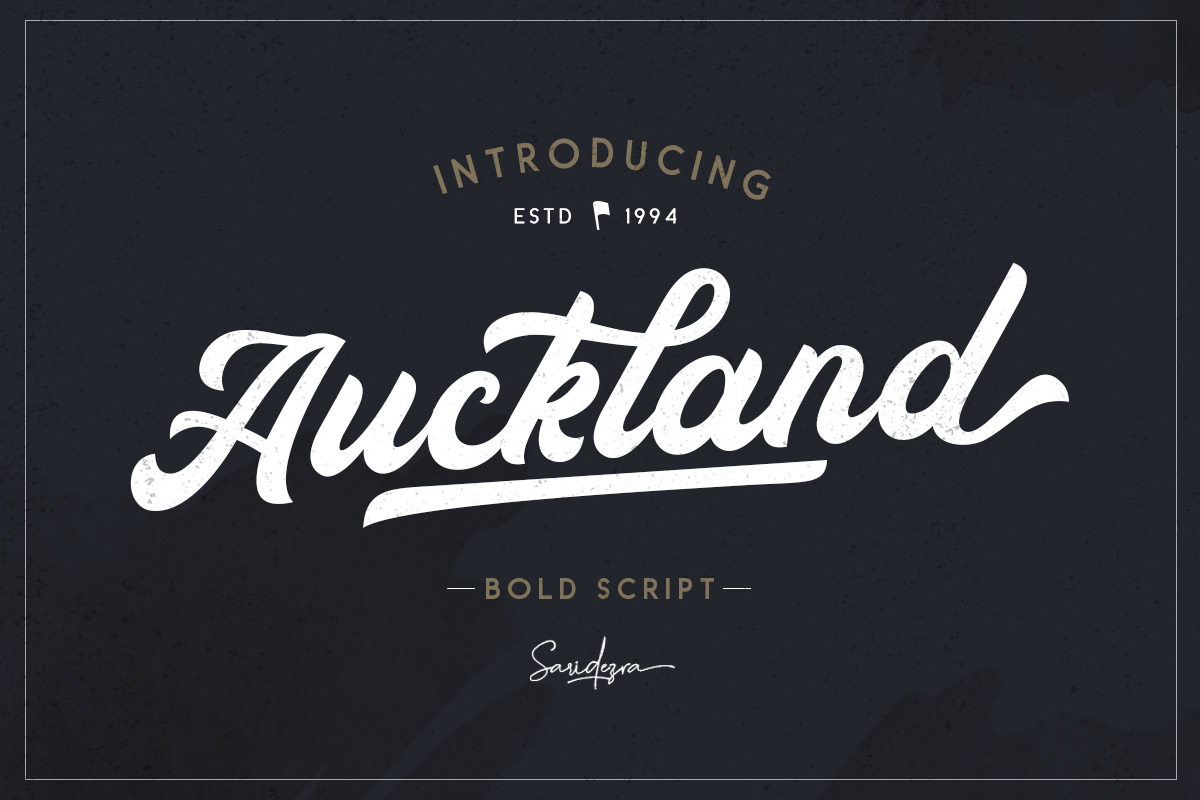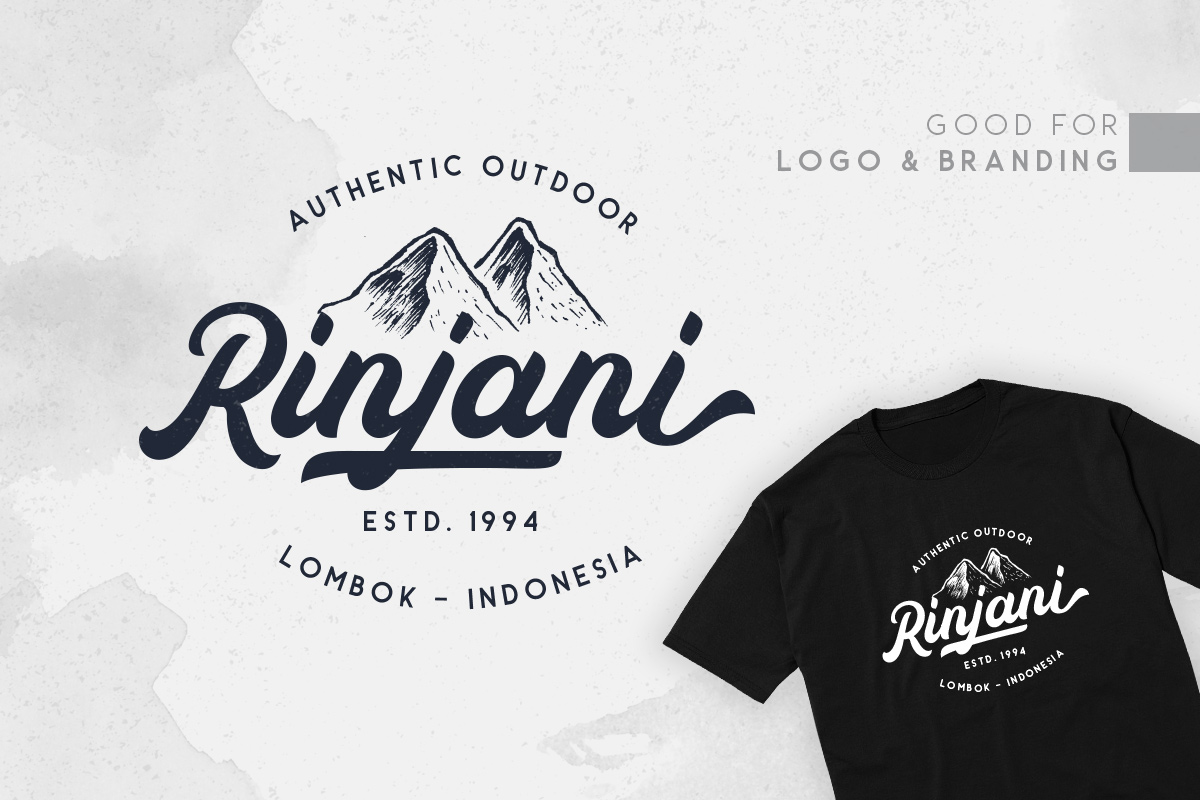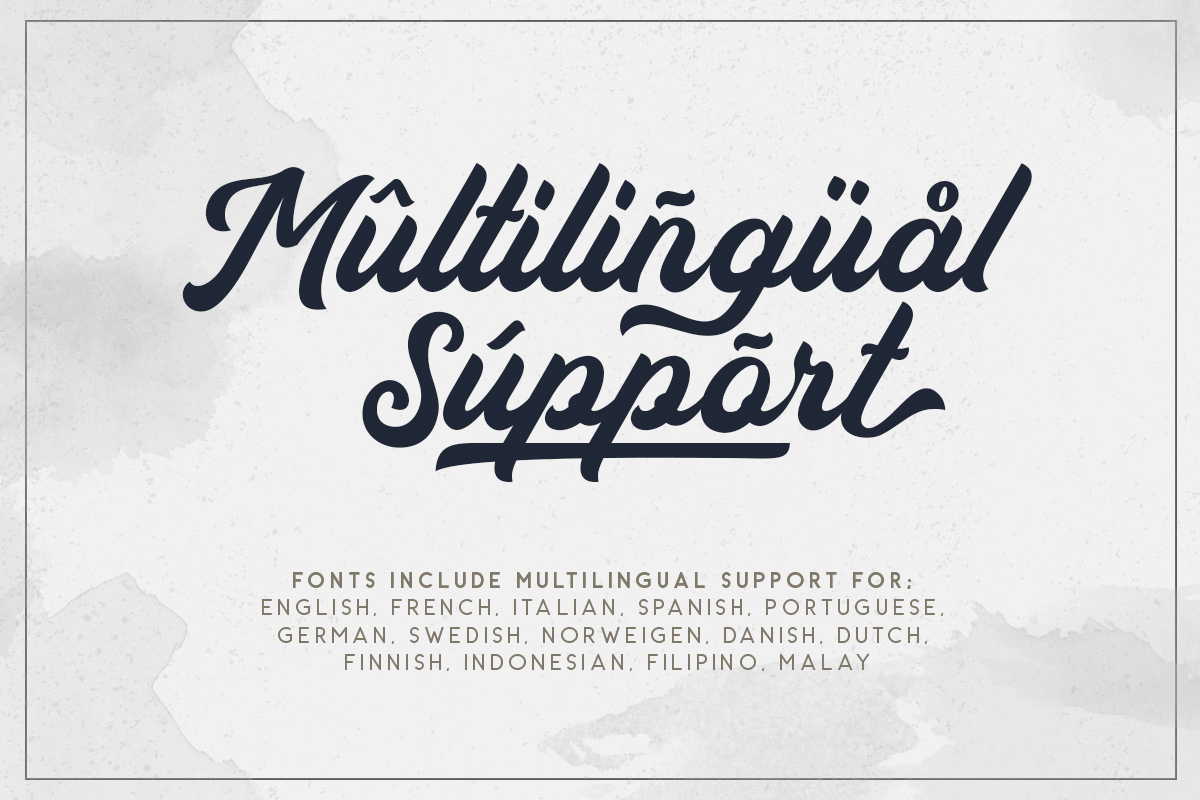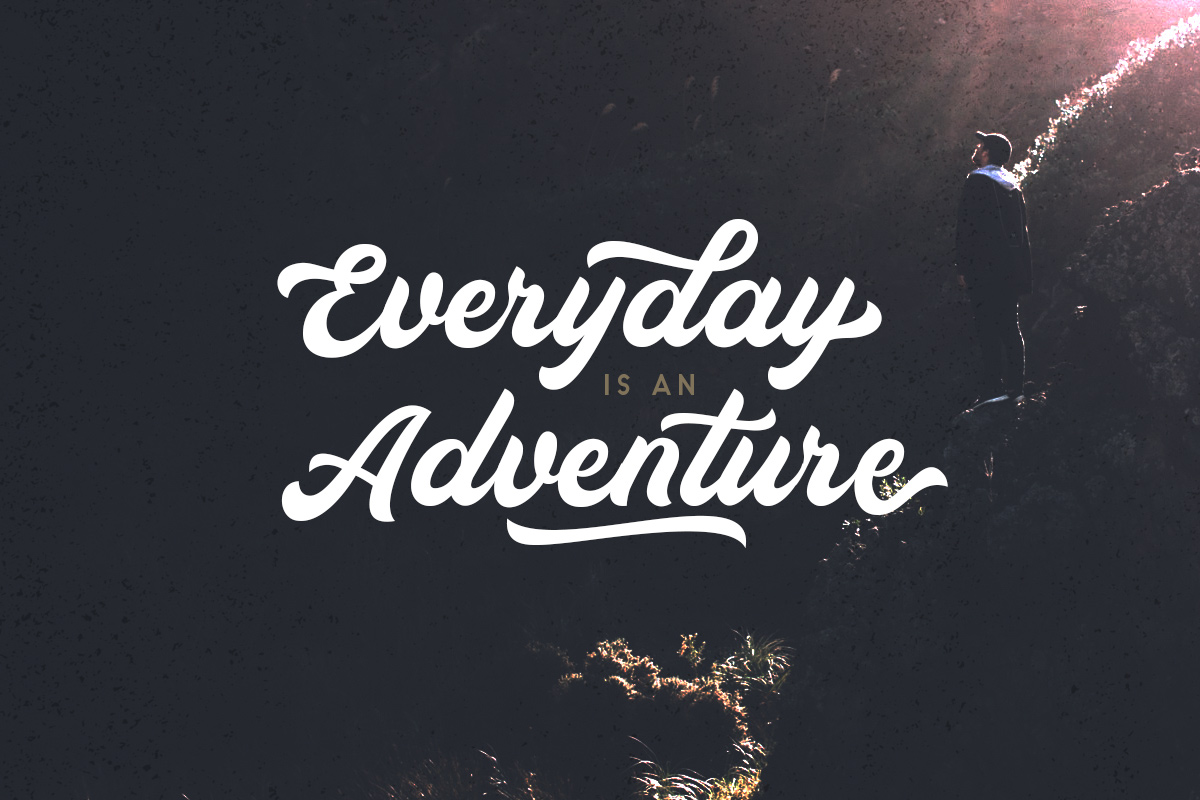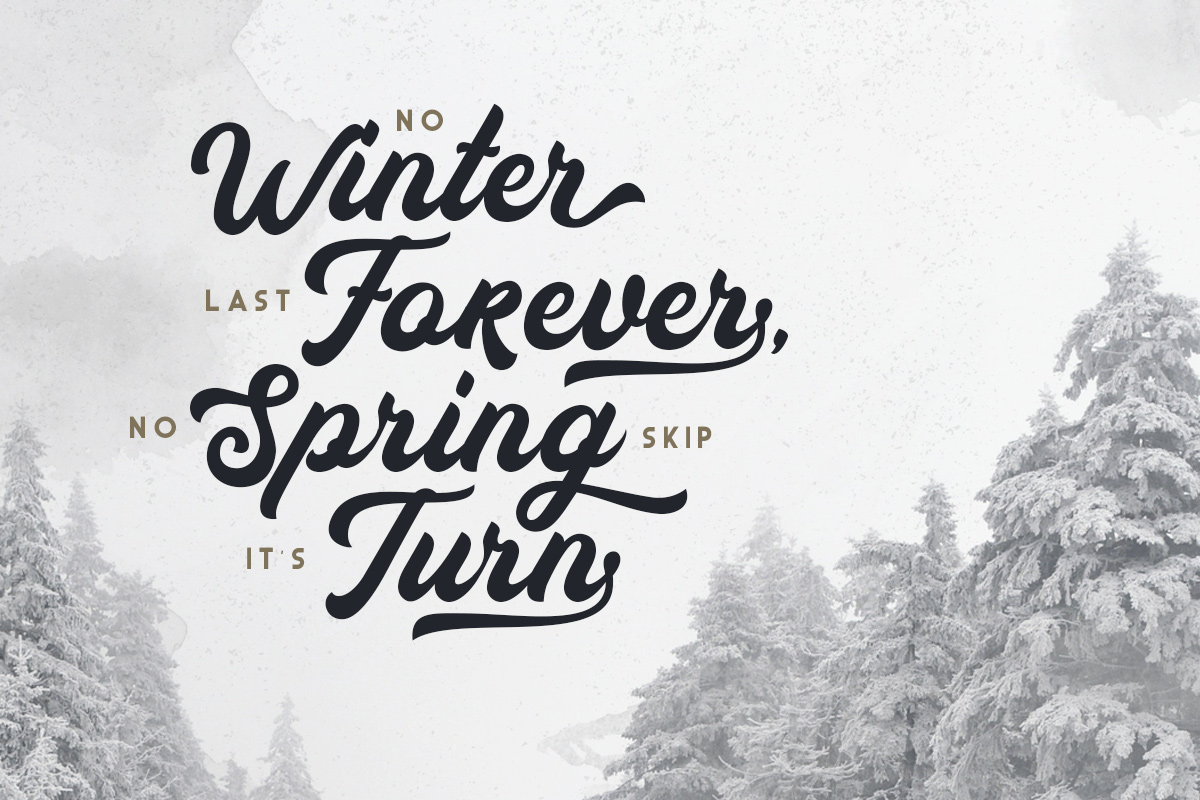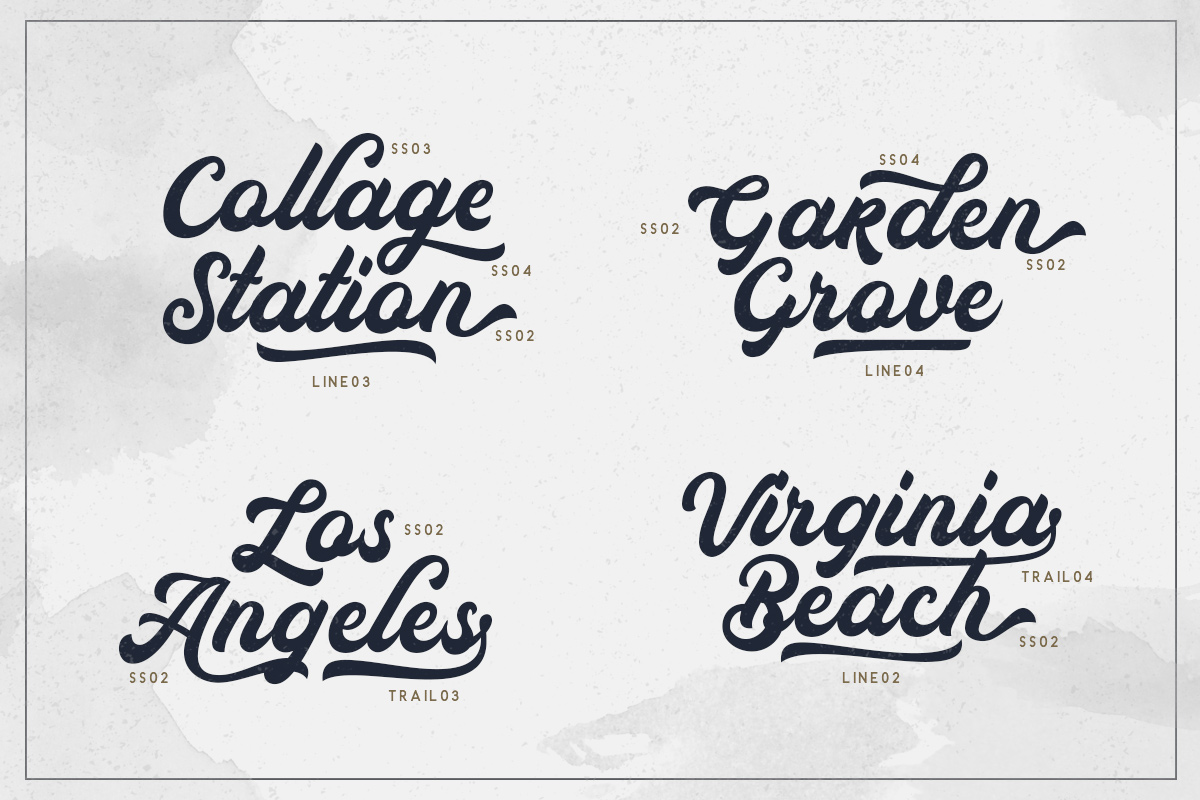
Auckland - Bold Script Font
Auckland Script
Auckland is a bold script that contain Uppercase, Lowercase, Numerals, Accents, Punctuations, 5 set alternates, Ligatures, Swash, and also Underline. You can use to make a logo for branding, best for apparel design, and quotes. This font also already PUA Encoded.